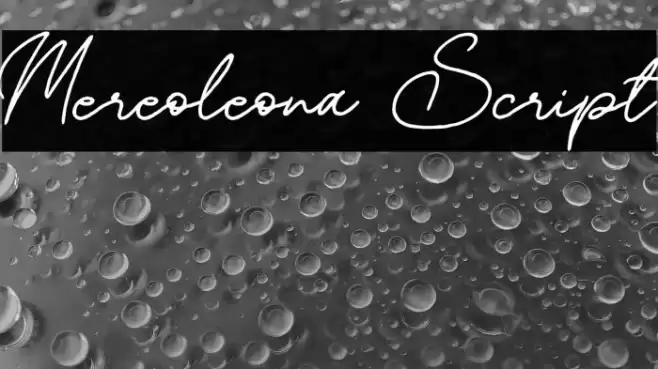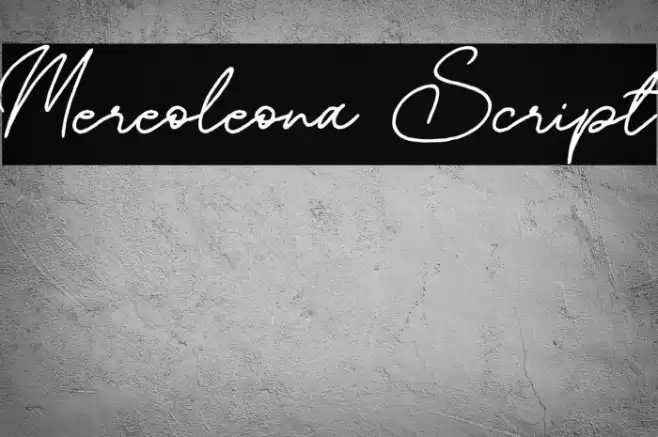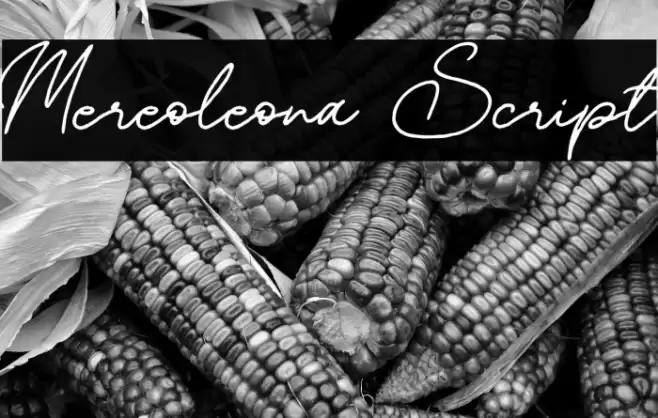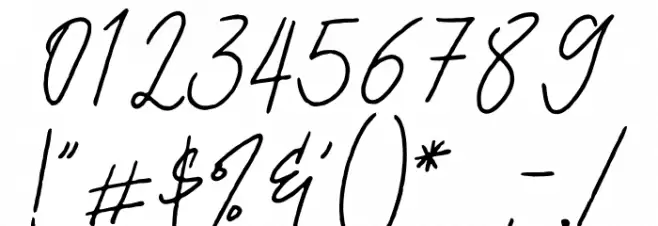
Mereoleona Script Font
Mereoleona Script Description
This script font exudes elegance and fluidity, characterized by its flowing, cursive style. The uppercase letters are tall and graceful, with sweeping lines that create a sense of movement. The lowercase letters maintain a consistent rhythm, with smooth connections between each character, enhancing the handwritten feel. The numerals are clear and legible, complementing the overall aesthetic. Special characters are thoughtfully designed, maintaining the font's cohesive look. This font is perfect for projects that require a personal touch, such as invitations, greeting cards, or branding materials.
A graceful and fluid script font with elegant, flowing cursive letters from Script fonts.
- Proposed Projects: Ideal for wedding invitations, personal branding, greeting cards, and elegant packaging.
- Overall Style: Elegant
- Use Case: Invitations, Branding, Greeting Cards